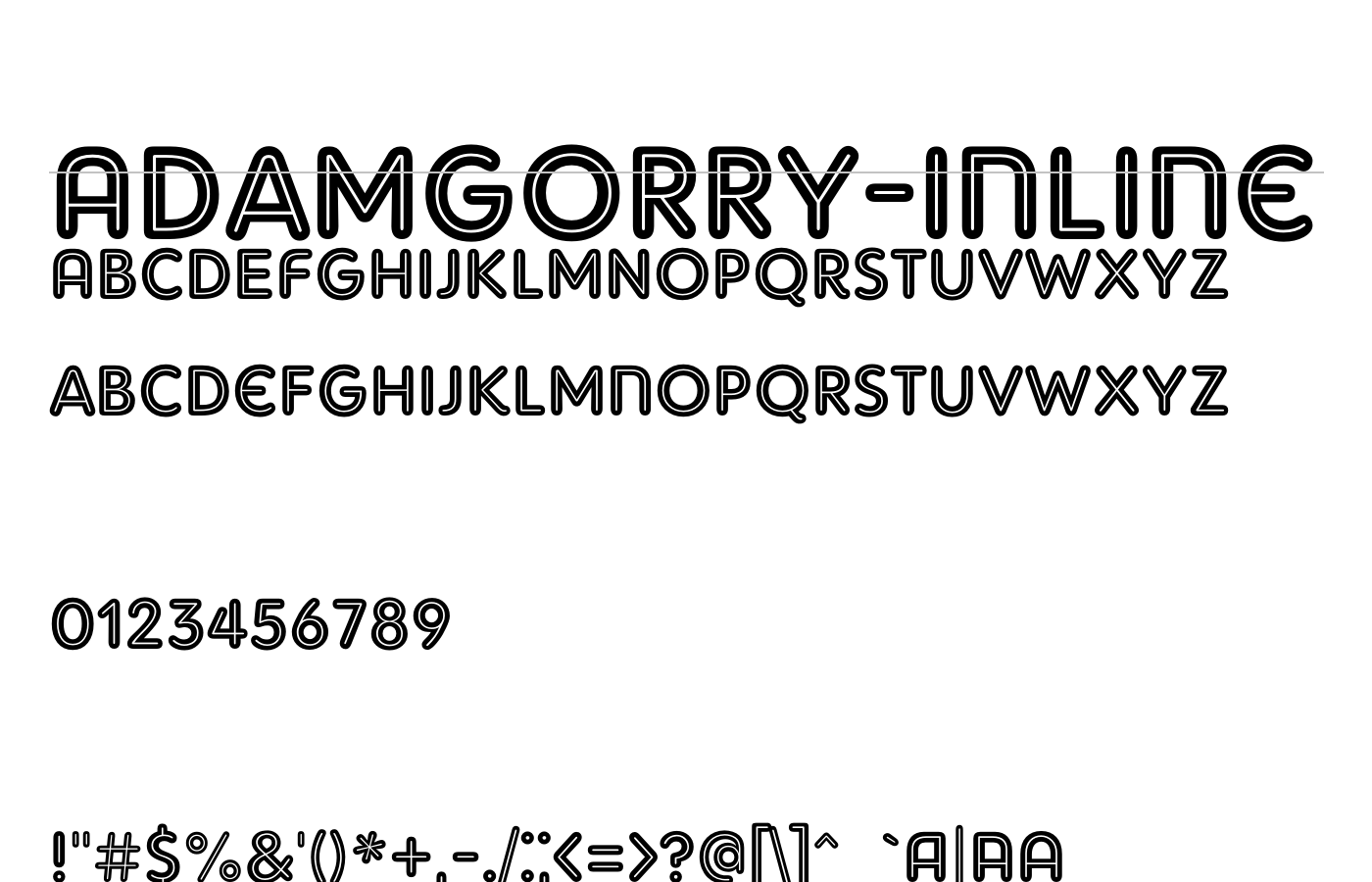
AdamGorry-Lights is a modern sans serif font with an eye-catching inline style that adds graphic interest and a sense of openness. Its clean, geometric letterforms are all uppercase with rounded corners and consistent stroke widths, creating a friendly yet sophisticated look perfect for contemporary branding, headlines, and logos. This font works well when you want to convey creativity and clarity with a stylish edge.
AdamGorry-Lights Font
About AdamGorry-Lights Font
| Designer | James Arboghast |